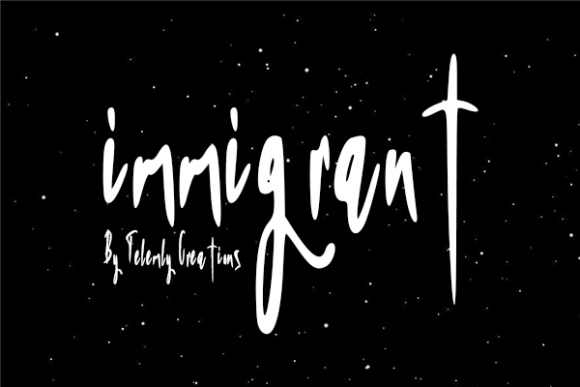
Introduction to Immigrant Font
You’ve spent hours staring at a blank canvas, trying to bring your creative vision to life. The cursor blinks impatiently, and your mind is a jumble of ideas. Suddenly, the perfect font pops into your head – Immigrant Font. Its unique, beautiful letters will transport your design to new heights.
As a designer, you’re always on the lookout for the perfect design resource to elevate your projects. Immigrant Font is more than just a font – it’s a game-changer. With its stunning, high-quality letters, you’ll be able to create eye-catching logos, branding, and quotes that truly stand out. And the best part? It’s available for free download, complete with a transparent background, making it the ultimate design companion.
Whether you’re working on a creative project or just need a boost of inspiration, Immigrant Font is the perfect tool to have in your arsenal. So why wait? Discover the magic of Immigrant Font and take your designs to new heights.
Key Features of Immigrant Font
- High-quality, professional font design ideal for creative projects
- Designed with a unique, modern aesthetic, perfect for contemporary design applications
Honest Review: Immigrant Font
I recently stumbled upon the Immigrant Font, a free design resource that has left me impressed. As a designer, I’m always on the lookout for high-quality fonts to elevate my creative projects.
Here are some things that work well with the Immigrant Font:
- ✨ Unique and modern design aesthetic: The font’s quirky style makes it perfect for adding a touch of personality to your designs.
- ⚠️ Limited language support: The font only supports a few languages, which might be a concern for designers working on multilingual projects.
- ⚠️ Not suitable for small text: The font’s design can make small text difficult to read, so it’s best used for larger font sizes.
Overall, I’m impressed with the Immigrant Font’s unique style and high-quality design. While it has some limitations, it’s a great addition to any designer’s toolkit, especially for creative projects that require a modern and quirky touch.
Common Use Cases for Immigrant Font
Immigrant Font is a versatile design resource that can be used in a variety of creative projects, including:
- Marketing